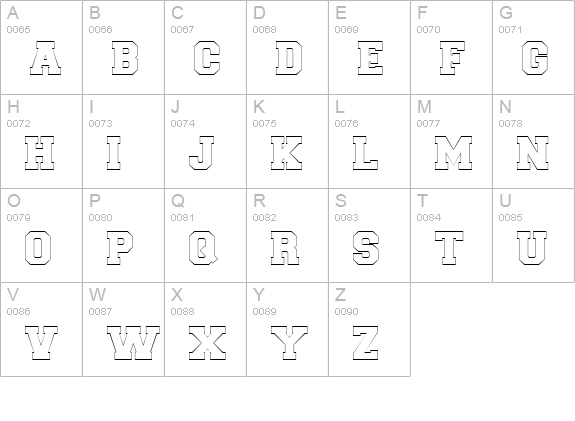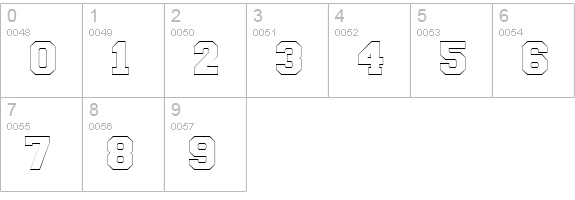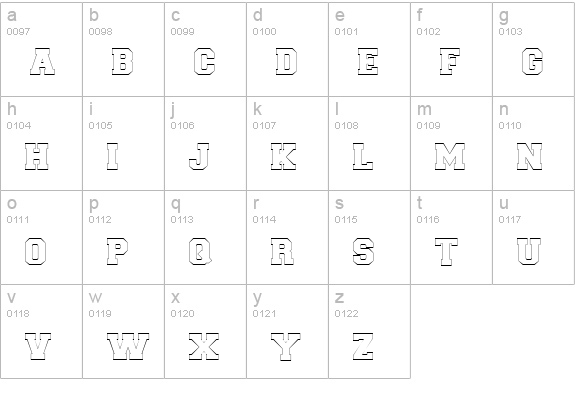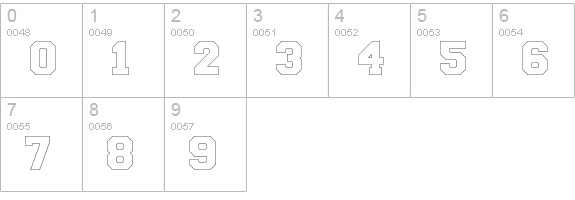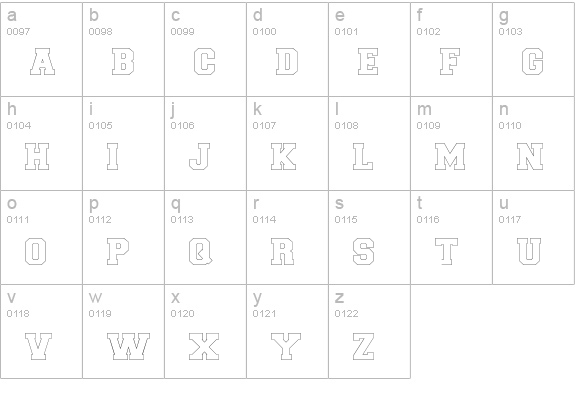
Letter Sweater Open Display SSi Normal Font Details
Letter Sweater Open Display SSi Normal is the standard, neutral variant in the Letter typeface family \xE2\x80\x94 well suited to general body text, paragraphs, and standard typographic work.
The Letter Sweater Open Display SSi Normal font is a charming and versatile typeface that exudes a retro, varsity-inspired aesthetic. Its timeless appeal makes it ideal for a wide range of design projects, including logos, posters, and apparel branding. With its bold, uppercase letters and playful, open-style design, this font captures the spirit of youthful energy and team spirit. Each character is meticulously crafted, featuring clean lines and a balanced weight that ensures legibility at any size. What makes the Letter Sweater Open Display SSi Normal font even more appealing is that it is freely available to download at FontsMarket.com. This means that you can add a touch of nostalgic flair to your designs without any additional cost. Whether you're a student, designer, or entrepreneur, this font offers a cost-effective solution for adding a retro vibe to your projects. Whether you're creating a vintage-inspired logo for a sports team, designing a poster for a school event, or crafting a retro-themed website, the Letter Sweater Open Display SSi Normal font is a versatile choice that will undoubtedly leave a lasting impression. Its unique style and freely available nature make it a valuable addition to any designer's toolkit.